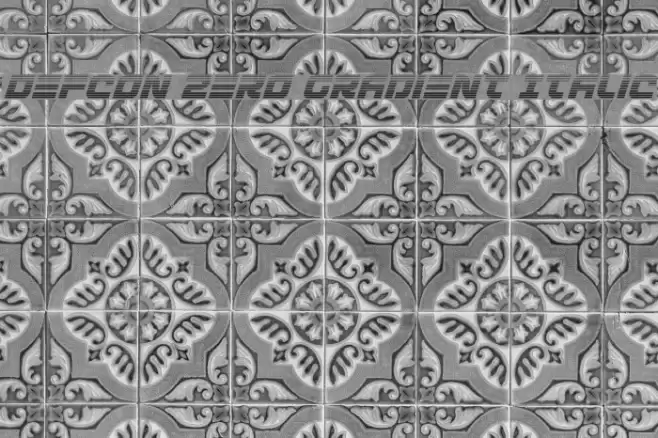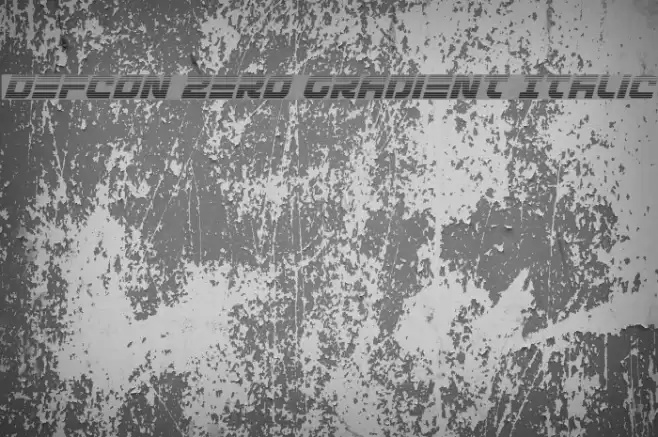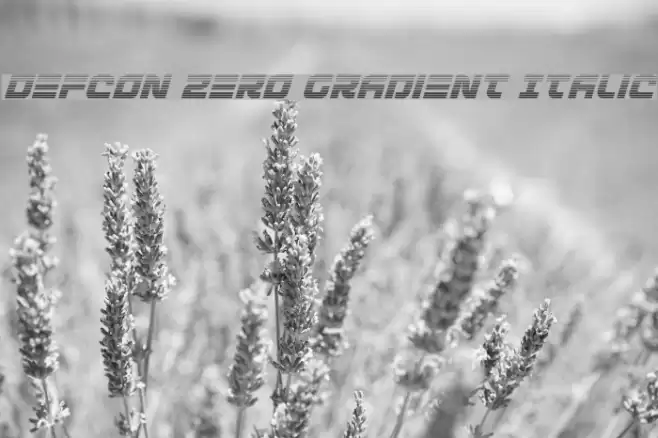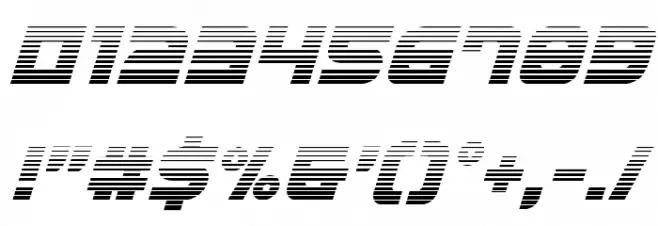
Defcon Zero Gradient Italic Font
Defcon Zero Gradient Italic Description
This font features a dynamic and futuristic design with a distinctive gradient effect. The characters are italicized, giving a sense of motion and speed. Each letter is composed of horizontal lines that create a striped appearance, enhancing the modern and digital aesthetic. The uppercase and lowercase letters maintain a consistent style, with sharp angles and clean lines. Numbers and special characters are designed to match the overall theme, ensuring uniformity across all glyphs. This font is ideal for projects that require a bold and contemporary look, such as technology-related branding or digital media.
A futuristic, italicized font with a gradient stripe effect from Sci-fi fonts.
- Proposed Projects: Ideal for tech branding, digital media, and modern advertising.